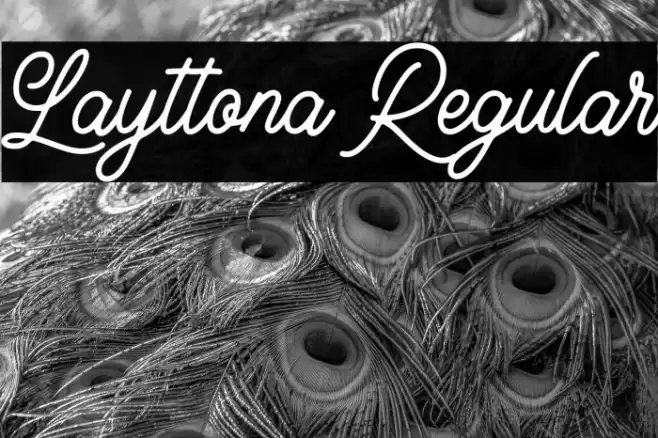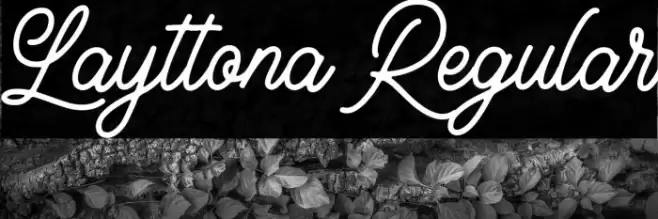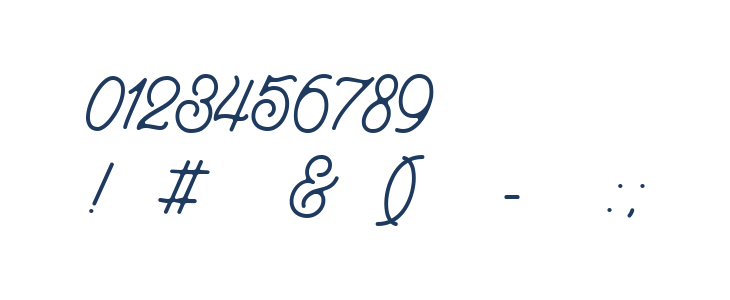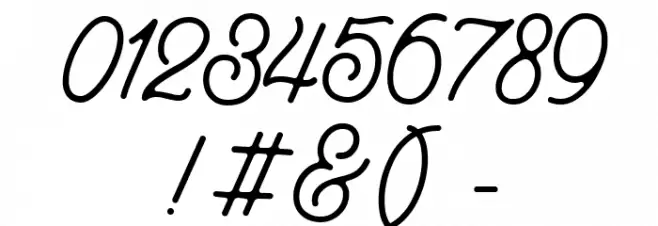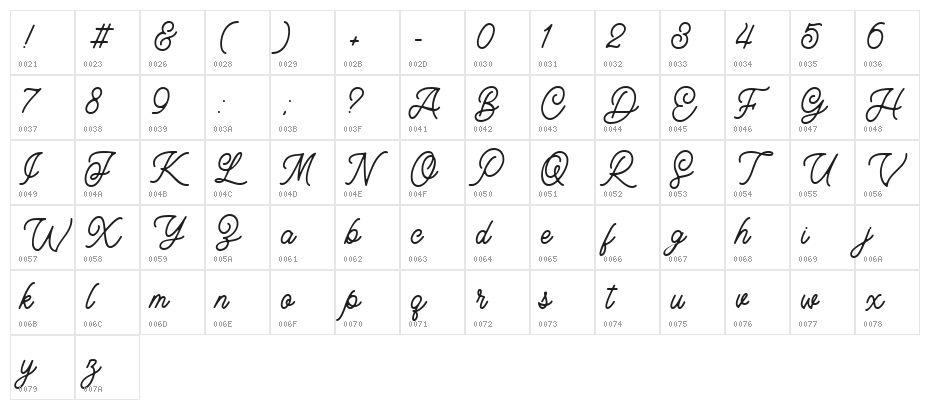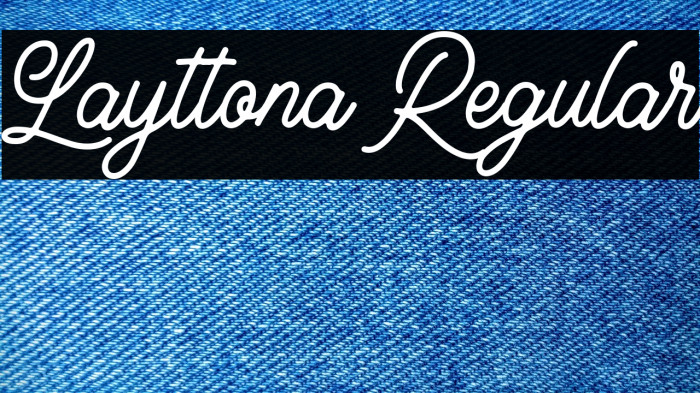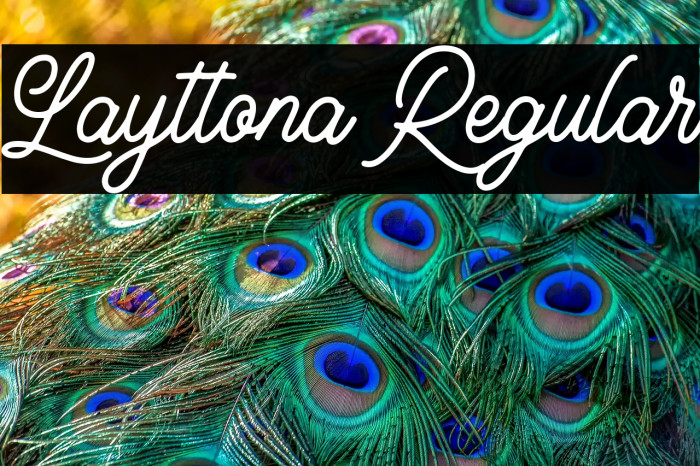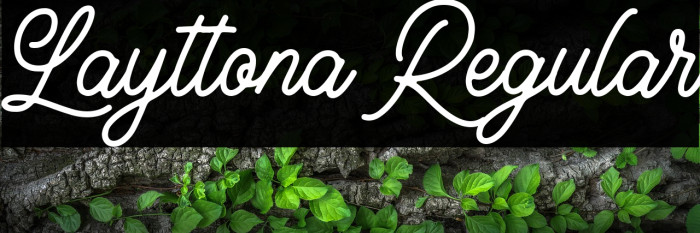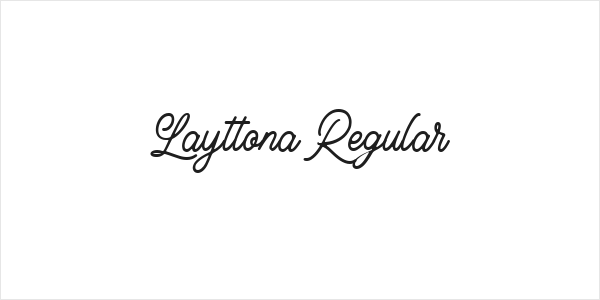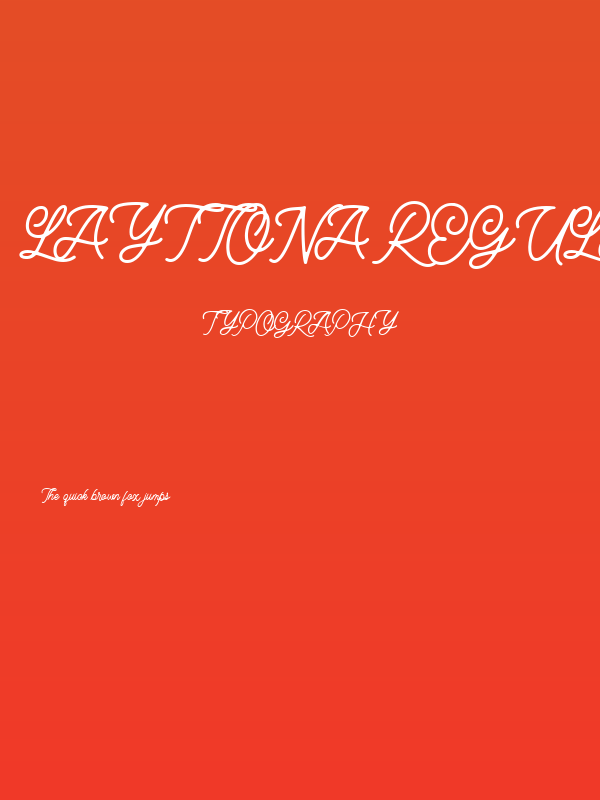
Layttona Regular Font
Layttona Regular Description
This font features a flowing, cursive style with elegant loops and swashes, giving it a sophisticated and artistic appearance. The uppercase letters are particularly ornate, with intricate connections between strokes, while the lowercase letters maintain a smooth, continuous flow. The numerals and special characters are designed to complement the overall script style, adding to its cohesive look. This font exudes a sense of elegance and creativity, making it suitable for projects that require a personal or artistic touch.
A flowing, cursive script font with elegant loops and swashes from Regular fonts.
- Font: Layttona Regular
- Proposed Projects: Ideal for wedding invitations, greeting cards, branding, and artistic projects.
- Overall Style: Elegant, Artistic
- Use Case: Logos, Invitations, Artistic projects